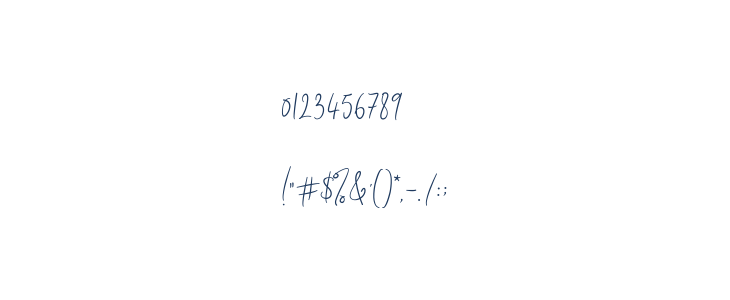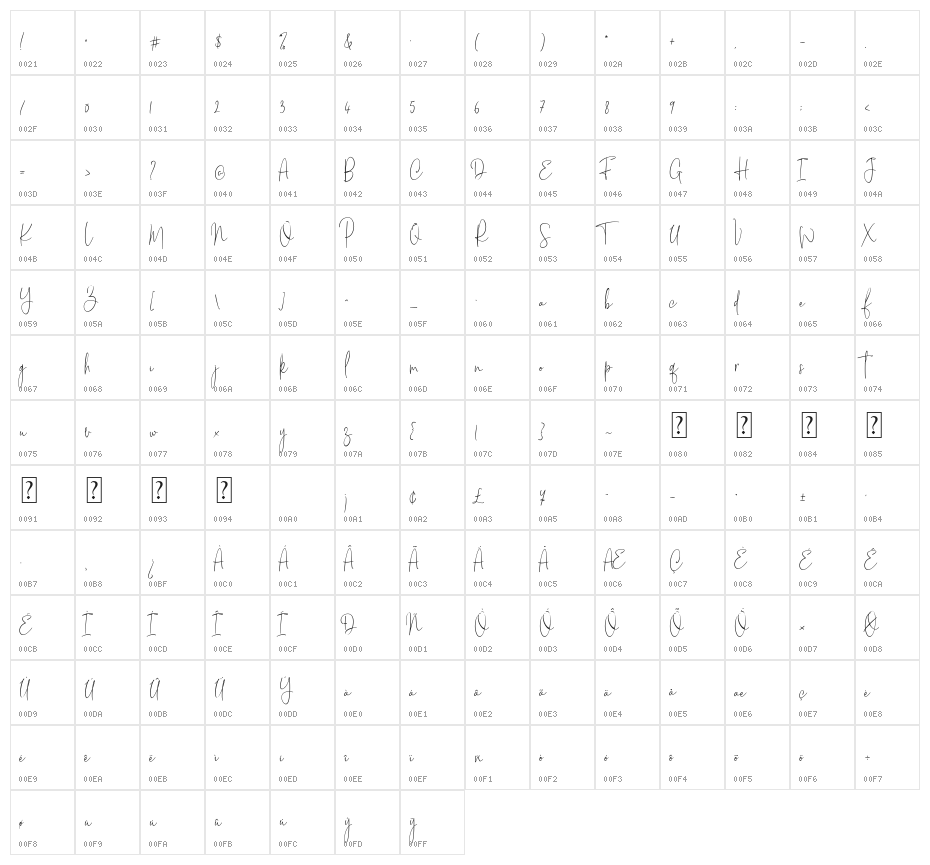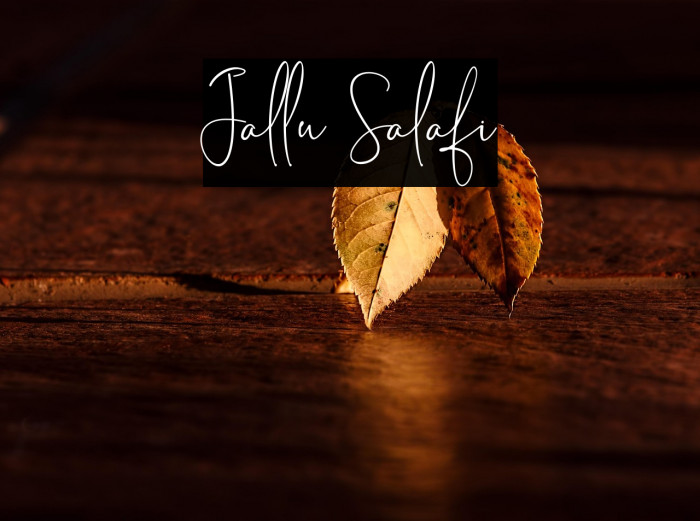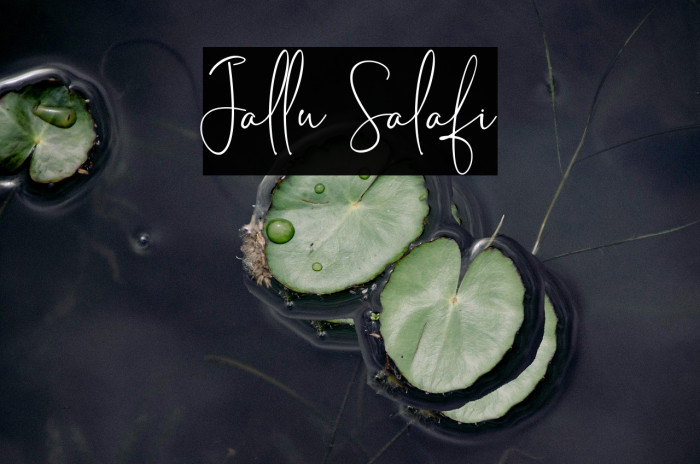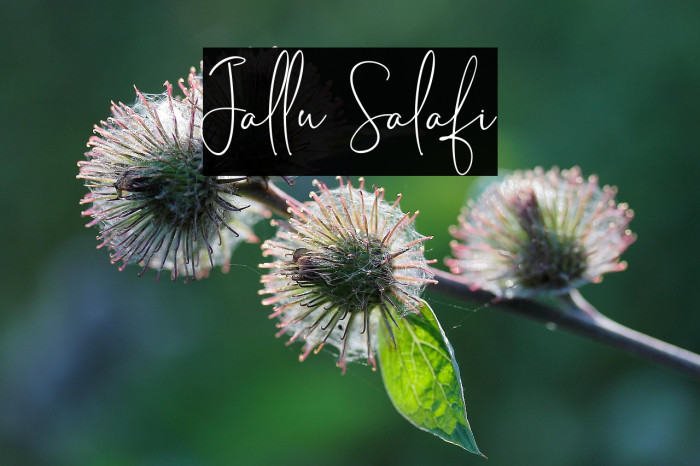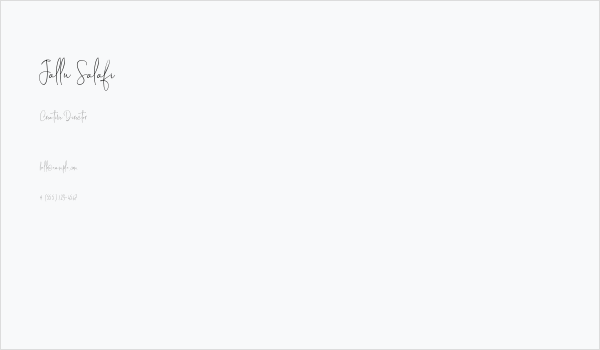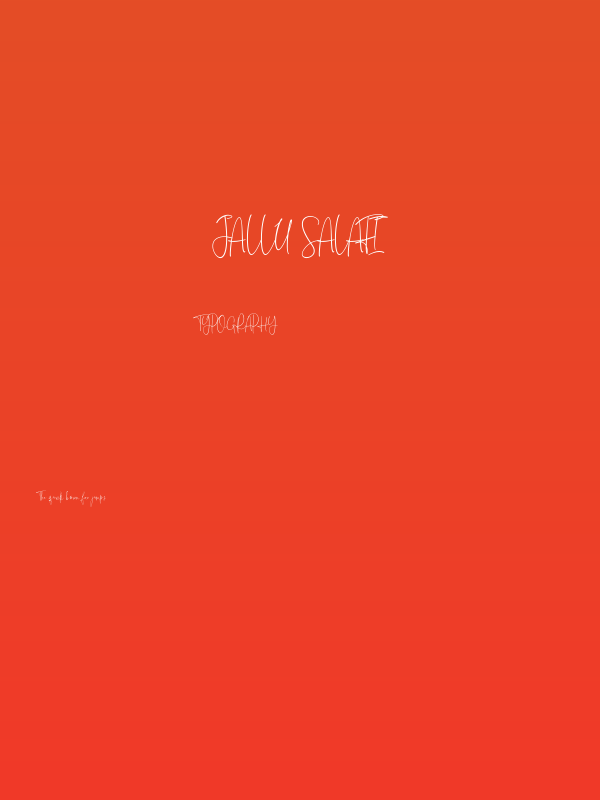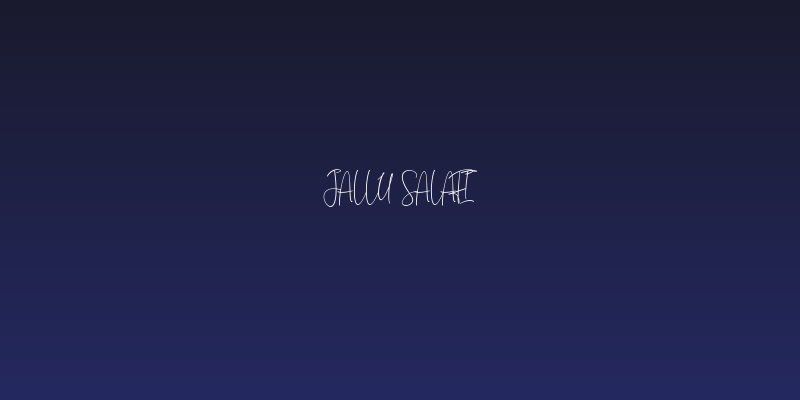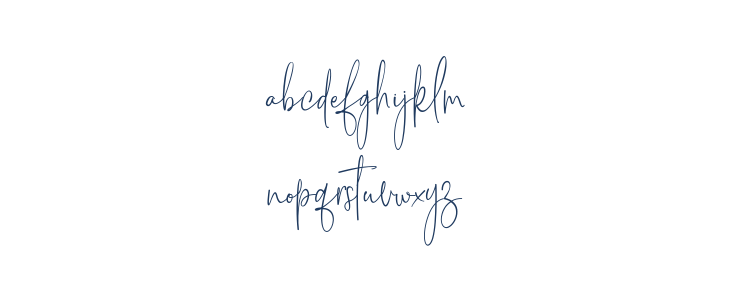
Jallu Salafi Font
Jallu Salafi Description
This font features an elegant, flowing script style with a hand-drawn appearance. The letters are characterized by their elongated, looping strokes and delicate curves, creating a sense of movement and grace. The uppercase letters are particularly ornate, with intricate swirls and flourishes that add a decorative touch. The lowercase letters maintain a consistent style, with a slightly more restrained design that complements the uppercase. The numerals and special characters follow the same aesthetic, ensuring a cohesive look throughout. This font's thin lines and high contrast between thick and thin strokes give it a refined and sophisticated appearance.
Overall StyleElegant, Decorative
Use CaseLogos, Invitations, Decorative text
Proposed ProjectsIdeal for wedding invitations, greeting cards, branding, and other projects requiring a touch of elegance and sophistication.